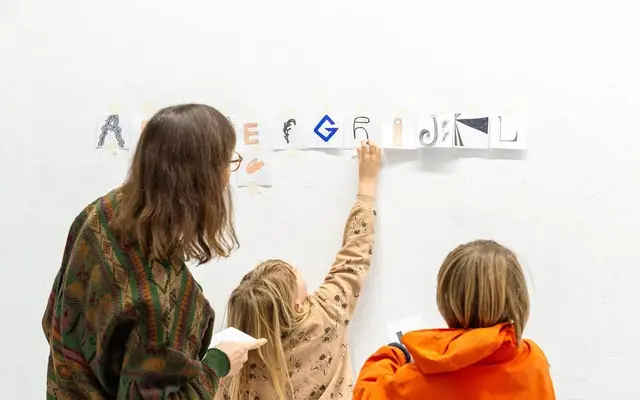
Not Your Type · Xiaoyuan Gao and workshop participants · 2024
A collaborative experiment in which workshop participants drew letters freely, with the results vectorised into two font files including a colour COLR variant.
Born from a workshop at ClubSolo where participants drew letters without technique instruction or rules, the typeface was vectorised by Xiaoyuan Gao into two styles: notRegular and a COLR colour version. The glyph set covers basic Latin uppercase, lowercase, numerals and punctuation only, with English as the sole supported language. Released under a restricted free licence, it suits personal, educational and small commercial work where raw, unpolished energy is the point.
Derived from unguided collective letter-drawing, the forms are irregular and expressive with no consistent structural logic, placing it firmly in display and experimental territory.